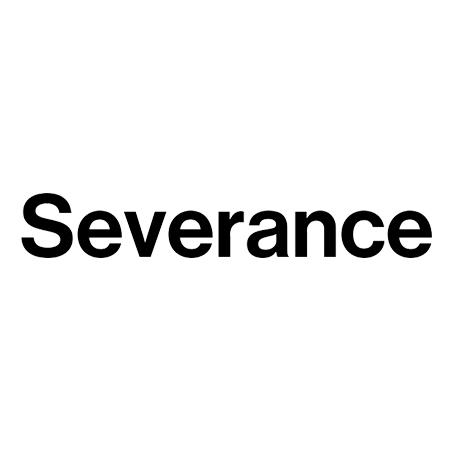
Severance Font
Movie & TVSeverance is a sci-fi thriller where employees have their work and personal memories split. It explores identity, control, and a mysterious corporate world.
The Severance font was custom-drawn, inspired by mid-century modernist typefaces like Helvetica and Akzidenz, echoing the clean, corporate aesthetic of the 1960s. While it looks familiar, subtle design tweaks give it an intentionally off-kilter feel—something just a bit strange you can’t quite name. Source.